Cursive fonts give any design an artistic and elegant touch. And when it comes to free cursive fonts, Google’s collection of cursive fonts certainly can’t be beaten! In this article, we are going to take a look at some of the best cursive Google Fonts out there so whether you’re a seasoned designer, deciding on branding for your small business or you are building your website from scratch, you’re sure to find a cursive font here!
But before we begin…
What Exactly Are Cursive Fonts?
Cursive fonts are also known as script fonts and they mimic the flowing and interconnected strokes of natural cursive handwriting. The strokes and flow of each letter are made up of elegant curves and stylish flourishes that create a unique and personal feeling when read. They have a sense of timelessness and sophistication and they bring a personal touch that adds depth and character to any design. Using cursive fonts in your designs can transform plain, ordinary text into stylish and eye-catching text that is captivating and engaging!
Cursive Google fonts come in a variety of styles, from flowery and ornate to simple and sleek, and by doing a simple Google search, you can find a wide range of cursive fonts that can bring your designs to life.
Cursive Google Fonts Collection
Now let’s jump in and take a look at some of the best cursive Google Fonts in the Google font library! I’ve chosen these 25 cursive fonts because they offer a diverse range of styles and designs, allowing you to choose the perfect font for your project. And if you need more font ideas, don’t forget to check out our other font style ideas:
Dancing Script
Dancing Script is a lively and casual cursive font with a bouncing rhythm, ideal for adding a playful and handwritten feel to your designs.
Niconne
The Niconne Google font is a delicate and elegant cursive font with flowing strokes and graceful curves, perfect for projects that require a touch of sophistication.
Italianno
Italanno is a font inspired by Italian calligraphy and features a classic and timeless style, making it suitable for projects that demand a sense of tradition and refinement.
Alex Brush
Alex Brush is a popular cursive Google font with gentle and fluid brush strokes. It has a sense of warmth and informality, making it a great choice for designs that require a friendly and approachable vibe.
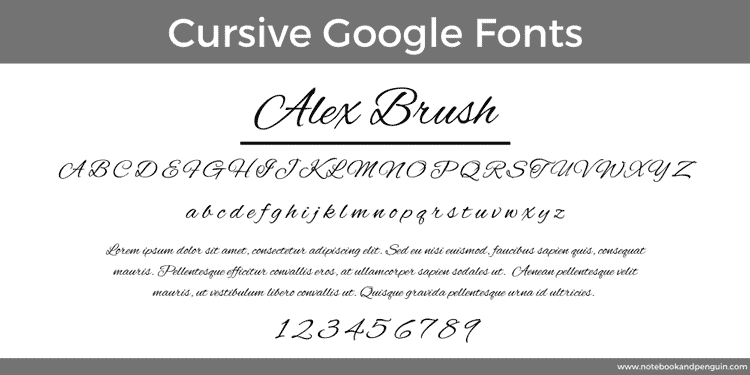
Parisienne
Parisienne captures the essence of Parisian handwriting with its elegant and romantic letterforms, ideal for projects that aim to evoke a sense of French allure and charm.
Petit Formal Script
The Petit Formal Script font combines a formal and sophisticated appearance with a delicate touch, making it suitable for projects that require an elegant and refined cursive style.
Pinyon Script
Pinyon Script is a flowing, casual Google font that emulates the look of handwritten calligraphy, bringing a relaxed and artistic vibe to your designs.
Tangerine
The Tangerine font is a bold and expressive cursive Google font with dynamic strokes, making it an excellent choice for projects that need a touch of energy and vibrancy.
Allura
Allura is a modern and versatile script font that strikes a balance between elegance and legibility, offering a wide range of design possibilities.
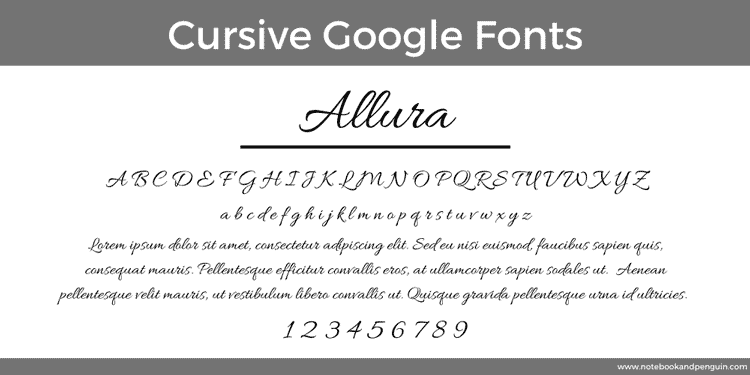
Euphoria Script
Euphoria Script features a contemporary and stylish cursive style, perfect for projects that require a touch of modern sophistication and visual impact.
Great Vibes
The Great Vibes font is an awesome Google font that has a feeling of nostalgia about it! It is a great choice for retro-style designs but can also be used in more classic designs as well.
Her Von Mueller
Her Von Mueller is a decorative and ornate script font with intricate details and elaborate letterforms, perfect for projects that demand a lavish and vintage-inspired aesthetic. Be careful when using it in paragraph text though! You can see from the font example below that it isn’t very easy to read.
Sacramento
Sacramento is a simple and elegant cursive font that emulates traditional handwriting, offering a clean and classic look for a variety of design applications.
Conclusion
Cursive Google Fonts and script fonts offer a touch of elegance, charm, and personality to designs and their timeless appeal and sophistication can transform plain text from boring to fantastic!